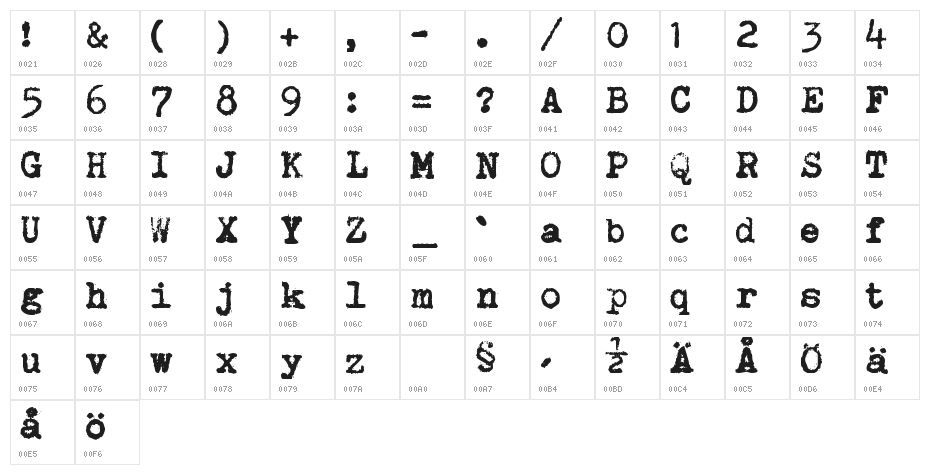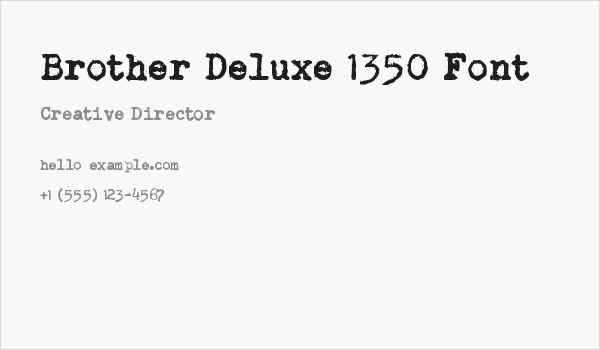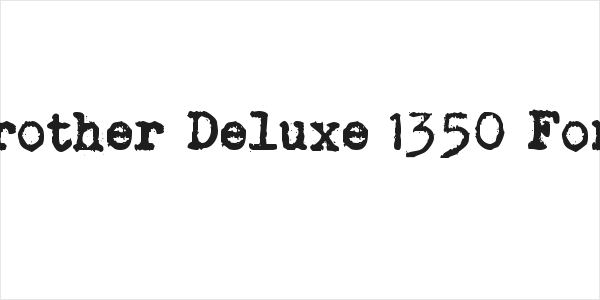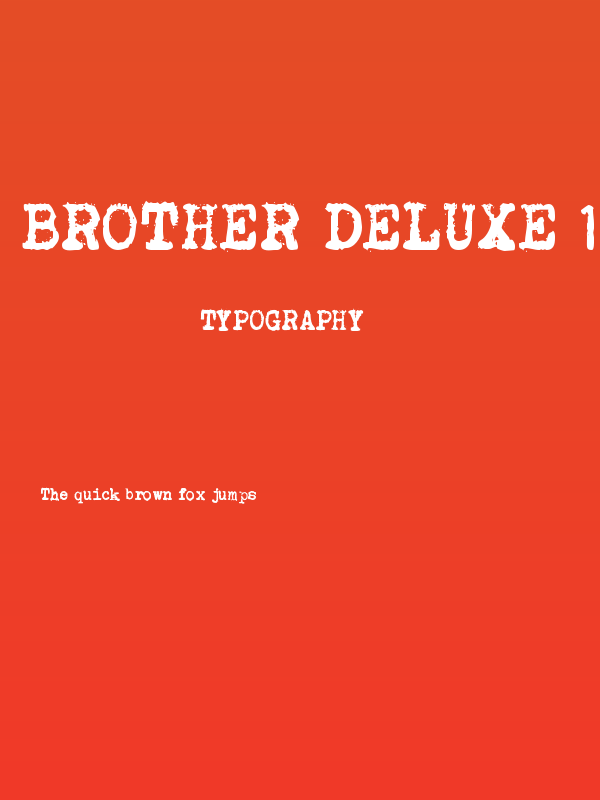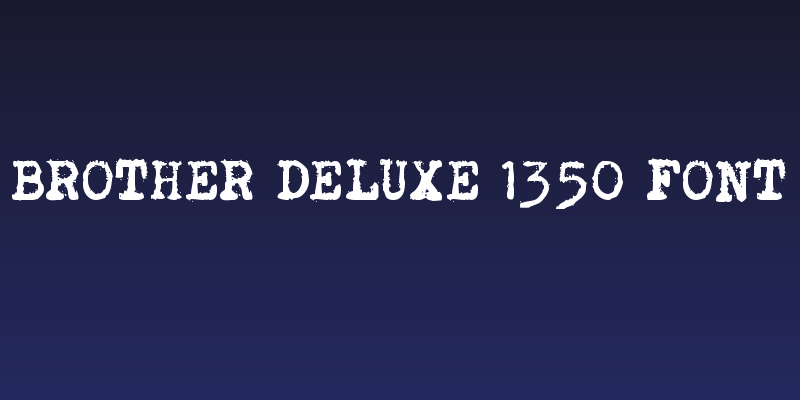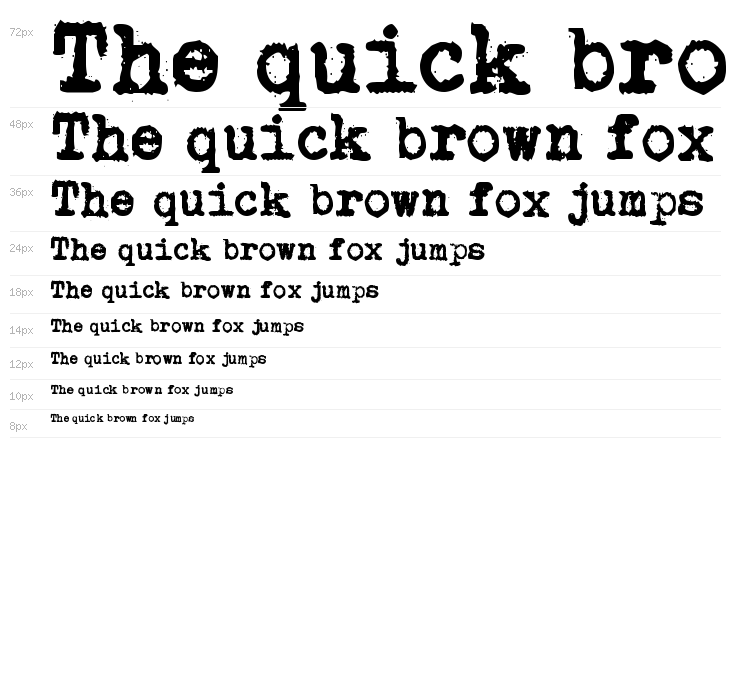
This font features a distressed, grunge style with a typewriter-like appearance. The characters are bold and have a rough, textured edge, giving them a vintage and worn look. The uppercase and lowercase letters maintain a consistent style, with slightly irregular shapes that add to the overall aesthetic. Numbers and special characters follow the same design, making them cohesive with the rest of the set. The font's unique style is reminiscent of old typewriter text, with a modern twist that incorporates a distressed effect.
| Proposed Projects | Ideal for projects that require a vintage or retro feel, such as posters, album covers, or themed event invitations. |